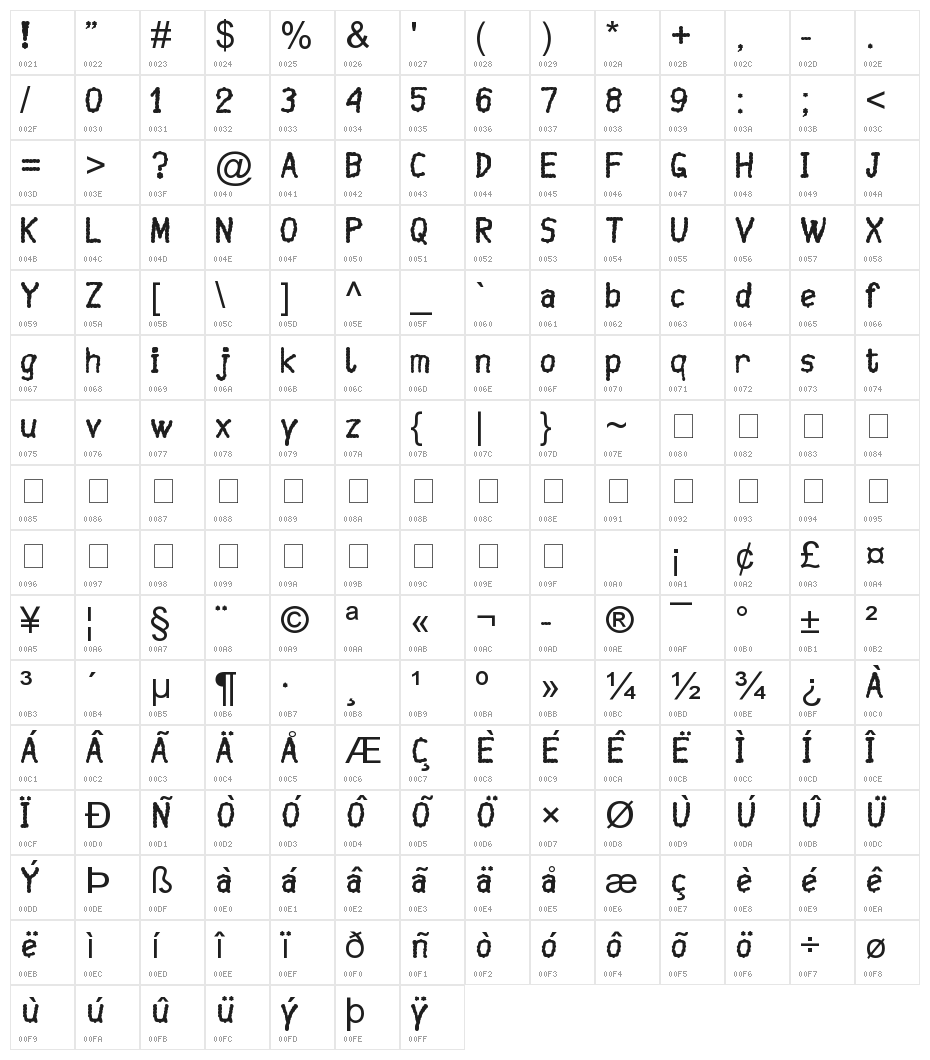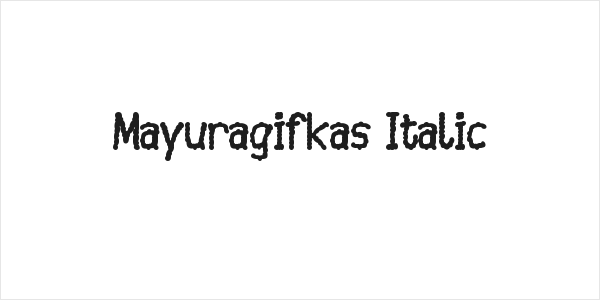
Mayuragifkas Italic Font
Mayuragifkas Italic Description
This font features a playful and organic design, with each character appearing as if it is composed of a series of connected, rounded blobs. The letters have a consistent thickness throughout, giving them a uniform appearance. The style is informal and whimsical, making it suitable for creative and fun projects. The characters are slightly tilted, adding a dynamic and lively feel to the text. The font includes a full set of uppercase and lowercase letters, numbers, and a variety of special characters, all maintaining the same bubbly aesthetic.
| Proposed Projects | Ideal for children's books, playful branding, creative posters, and informal invitations. |